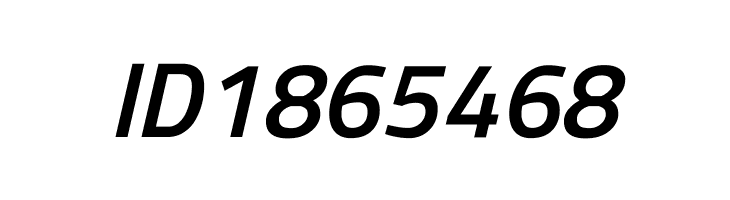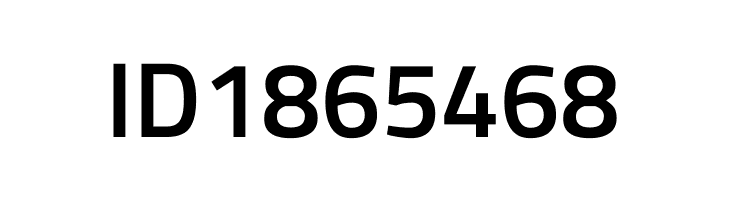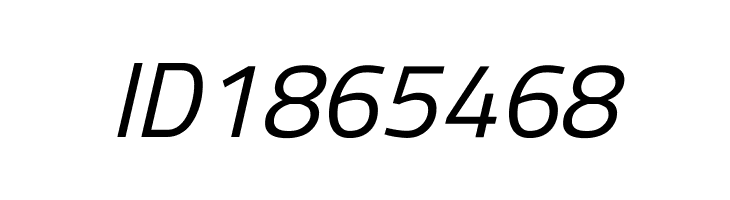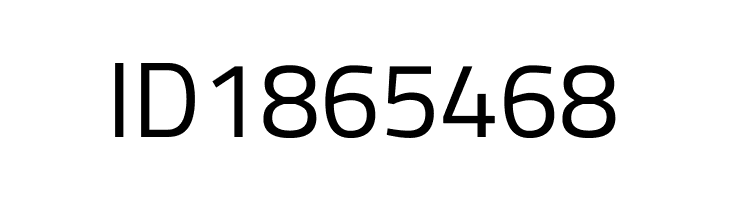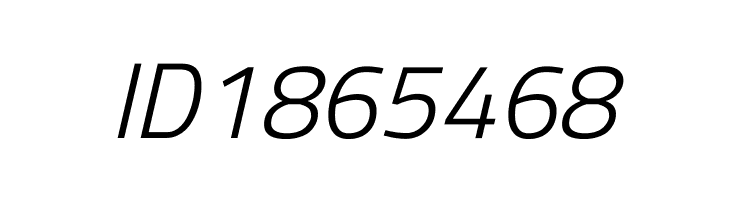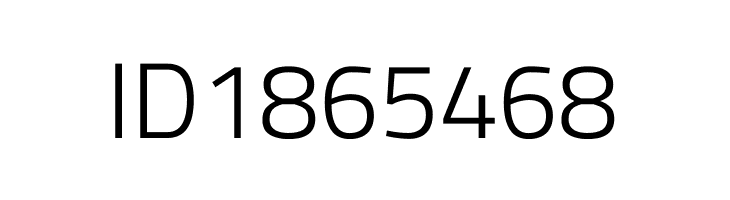
A sleek, modern, and extra light italic font with excellent readability.
A modern, italicized font with clean lines and a sleek design.
A modern, light sans-serif font with clean lines and low contrast.
A sleek, modern, light italic sans-serif font with elegant slant and low contrast.
A modern, clean sans-serif font with excellent readability and versatility.
A modern sans-serif font with a semi-bold weight and slightly condensed width.
A modern, italicized typeface with clean lines and a professional appearance.
A bold, geometric font with strong, uniform strokes and modern appeal.
A modern, bold sans-serif font with excellent readability and versatility.
A modern, bold, and italicized font with a sleek and dynamic appearance.